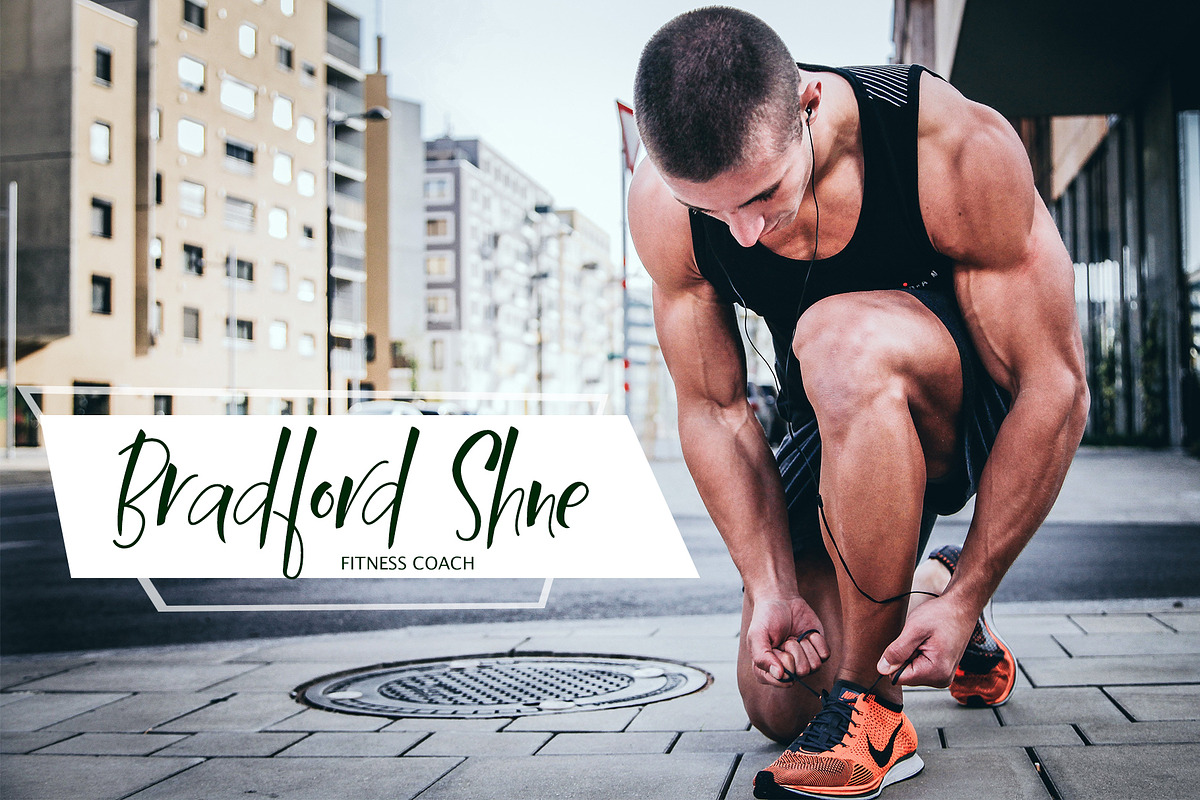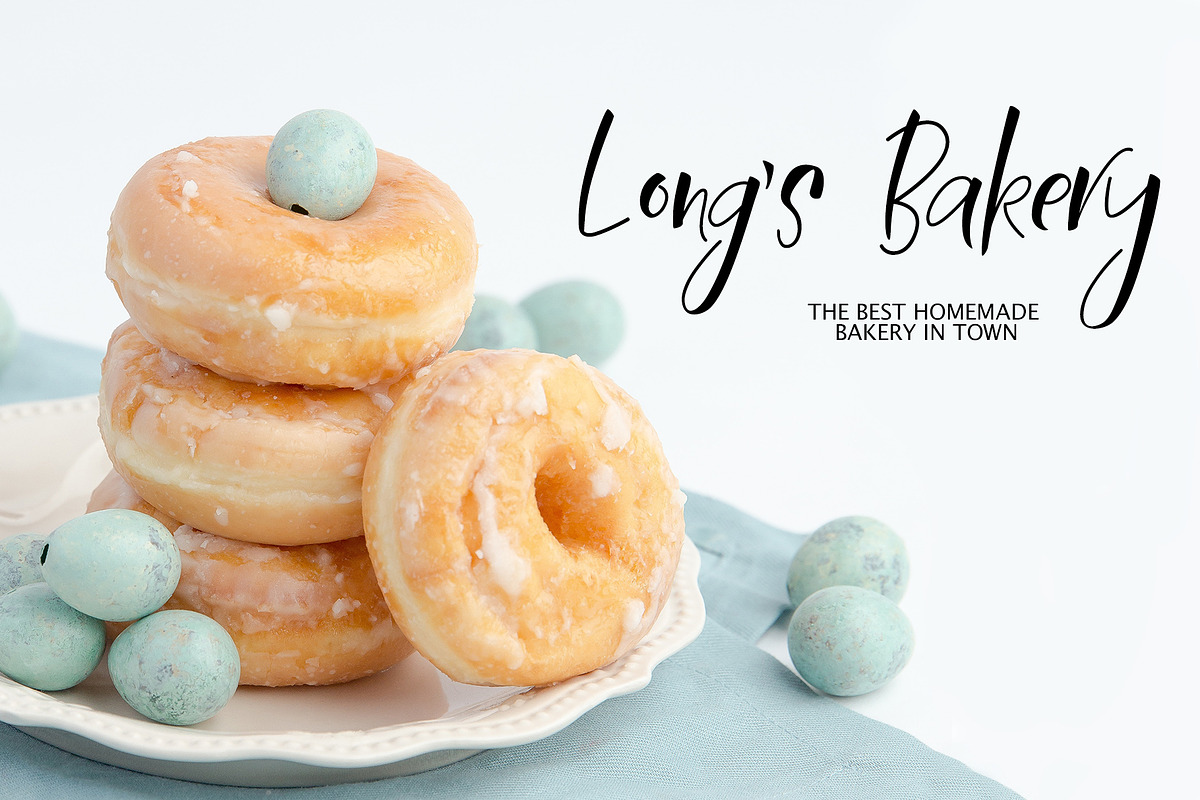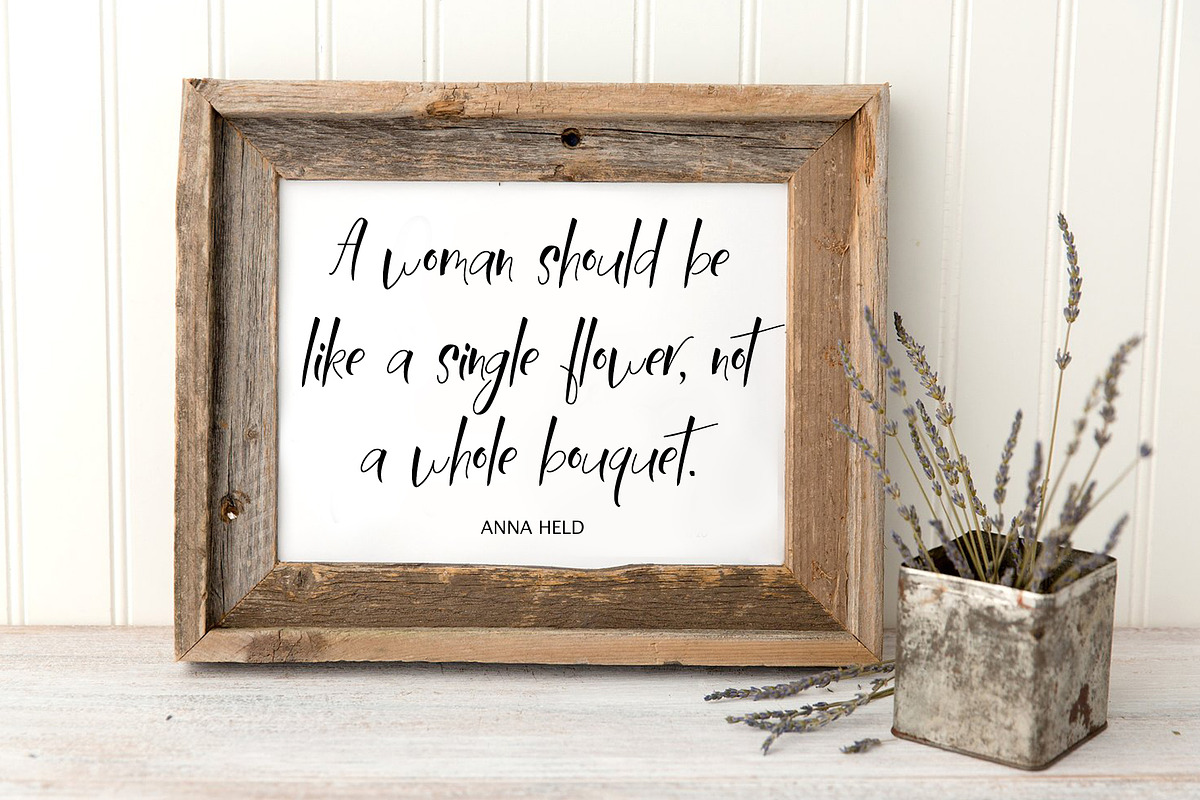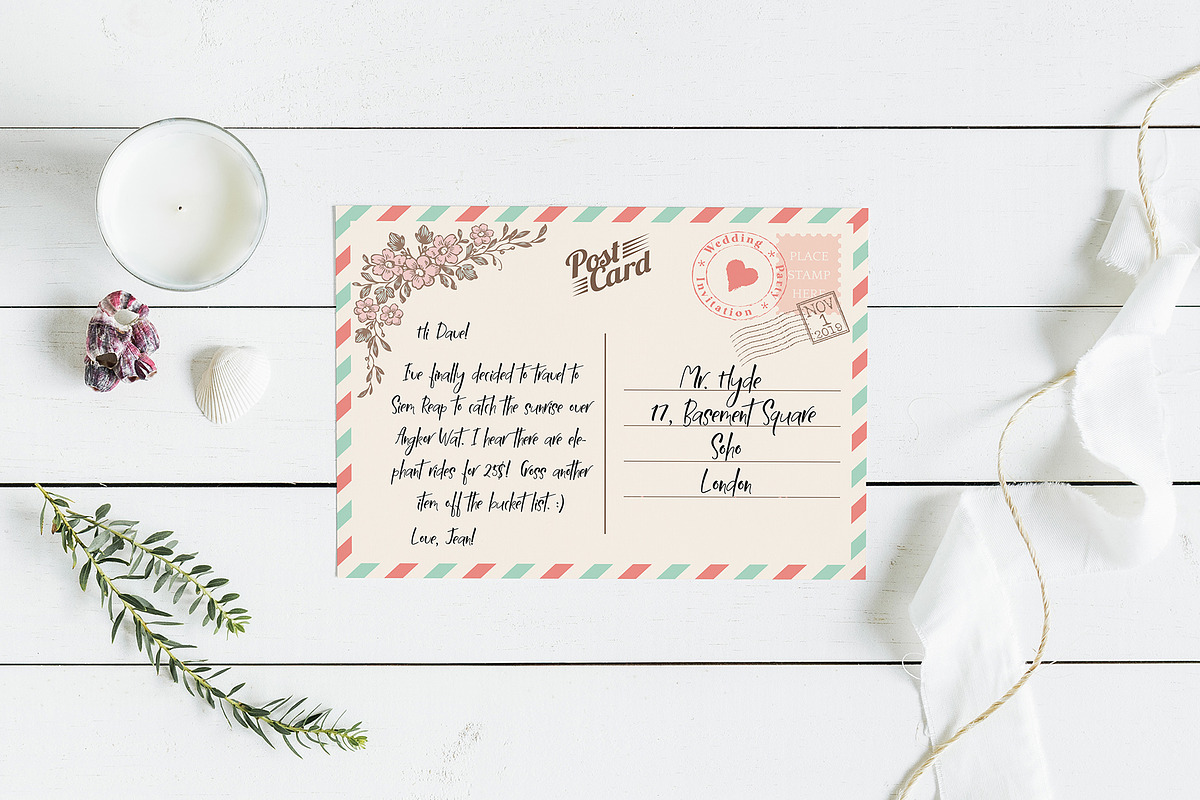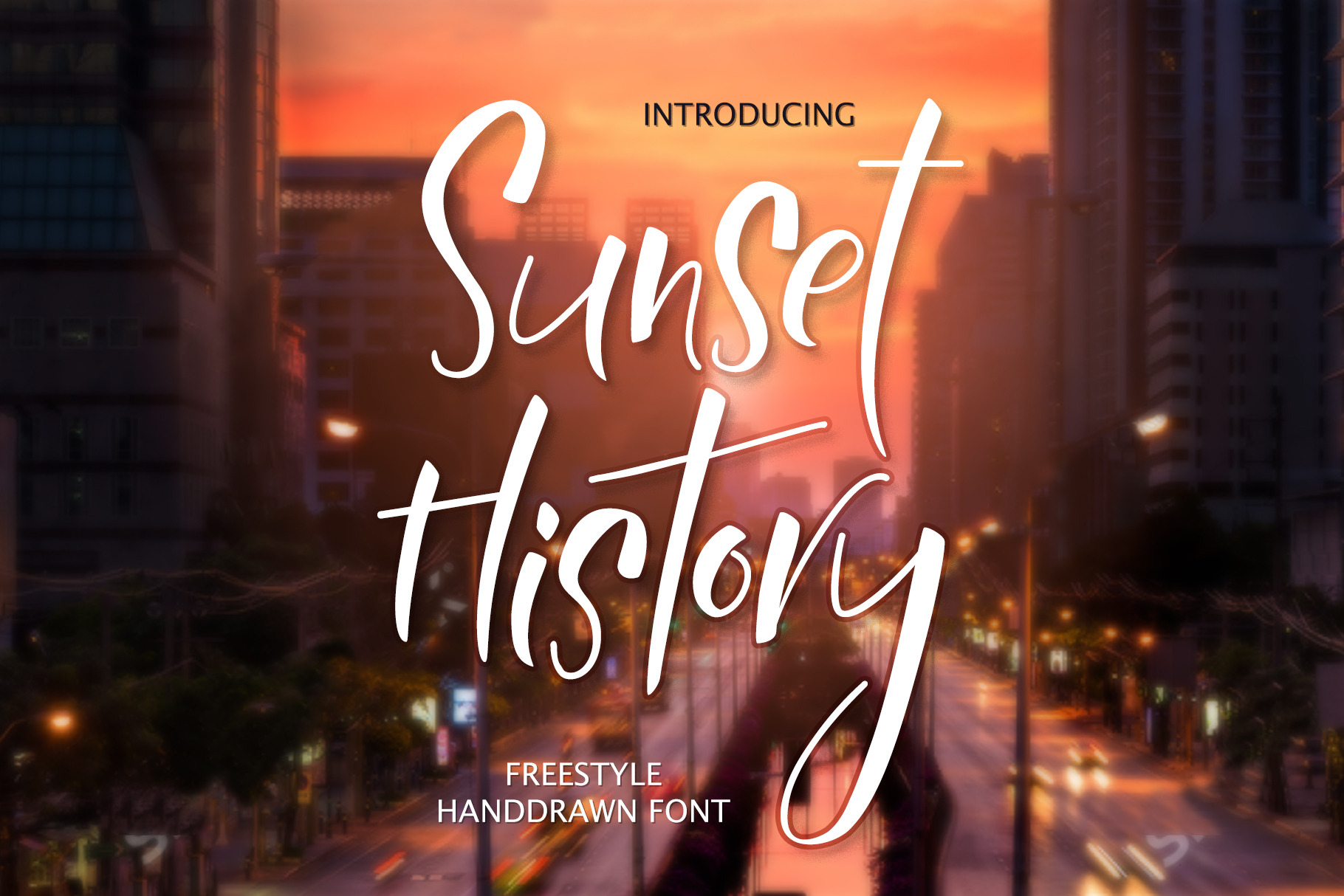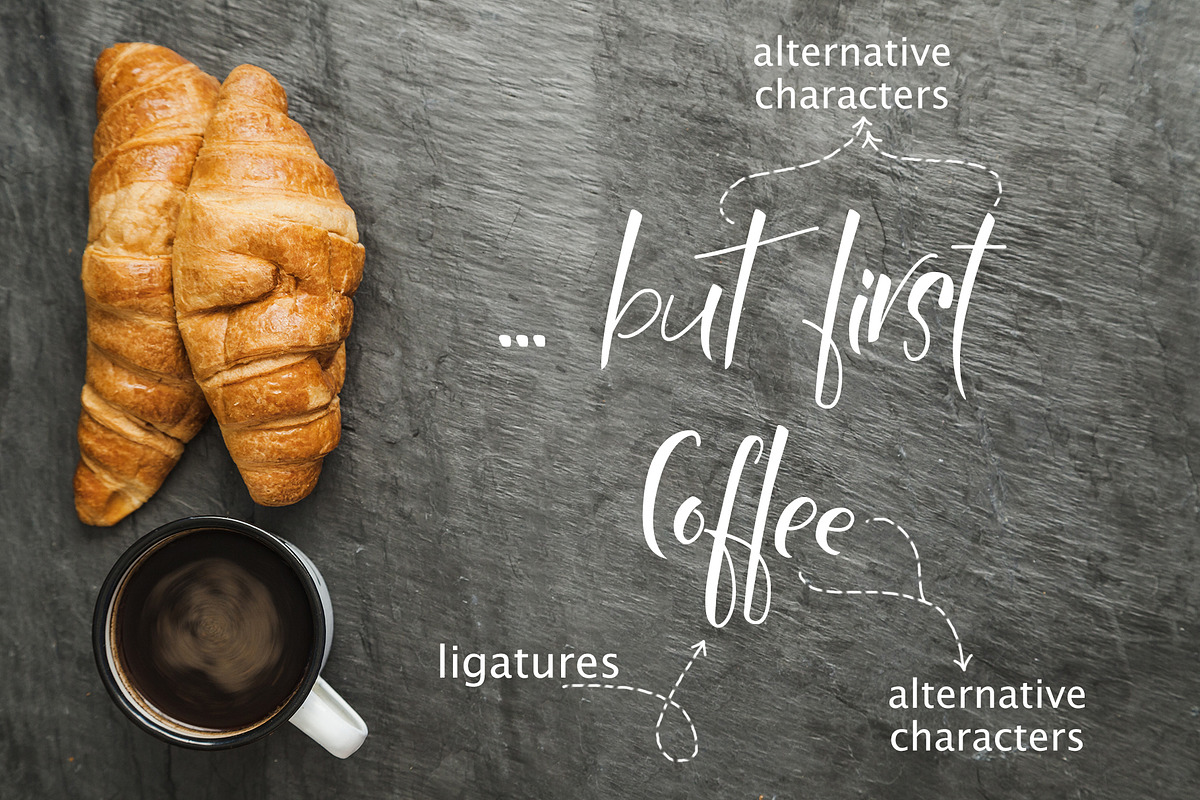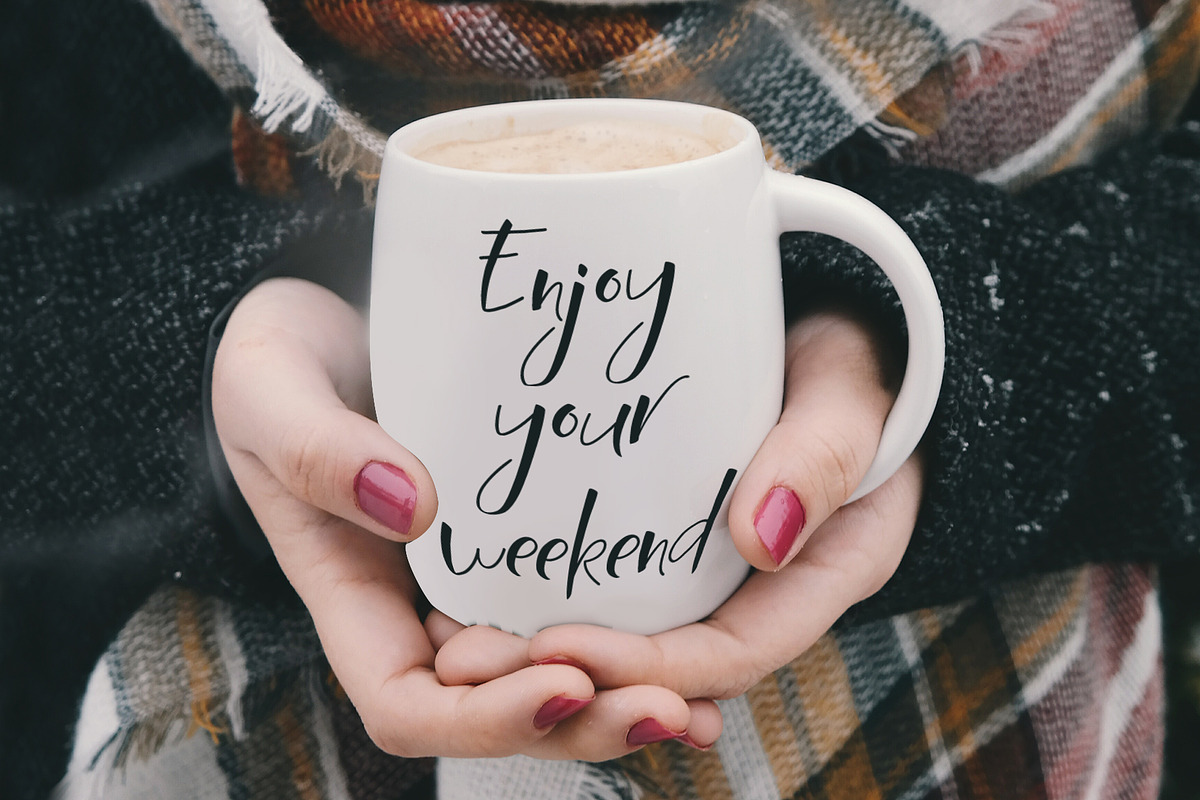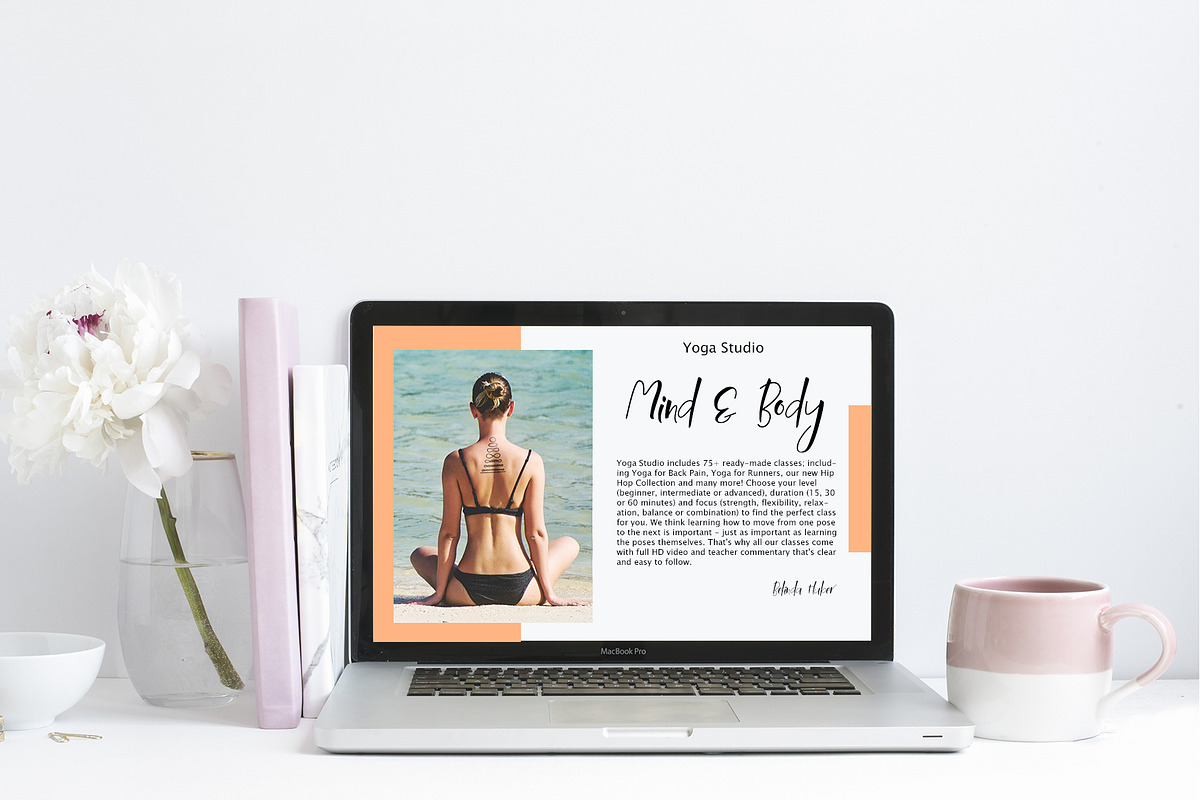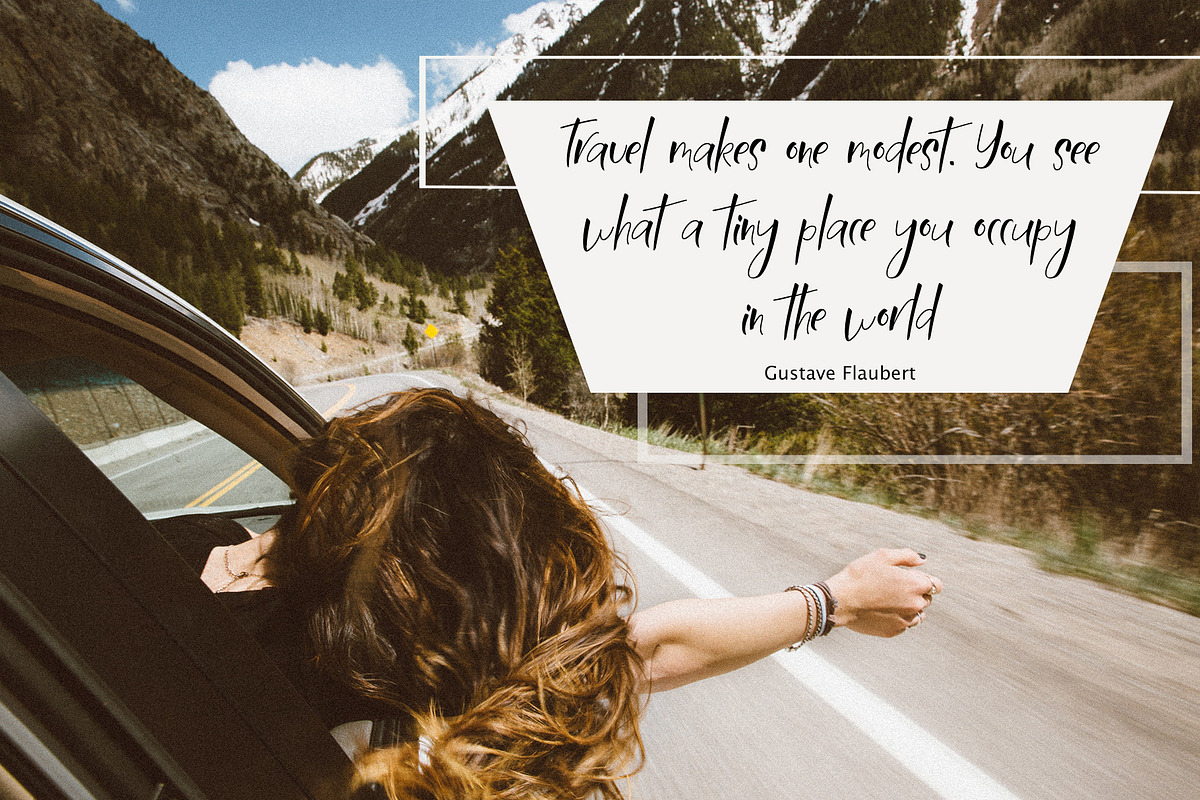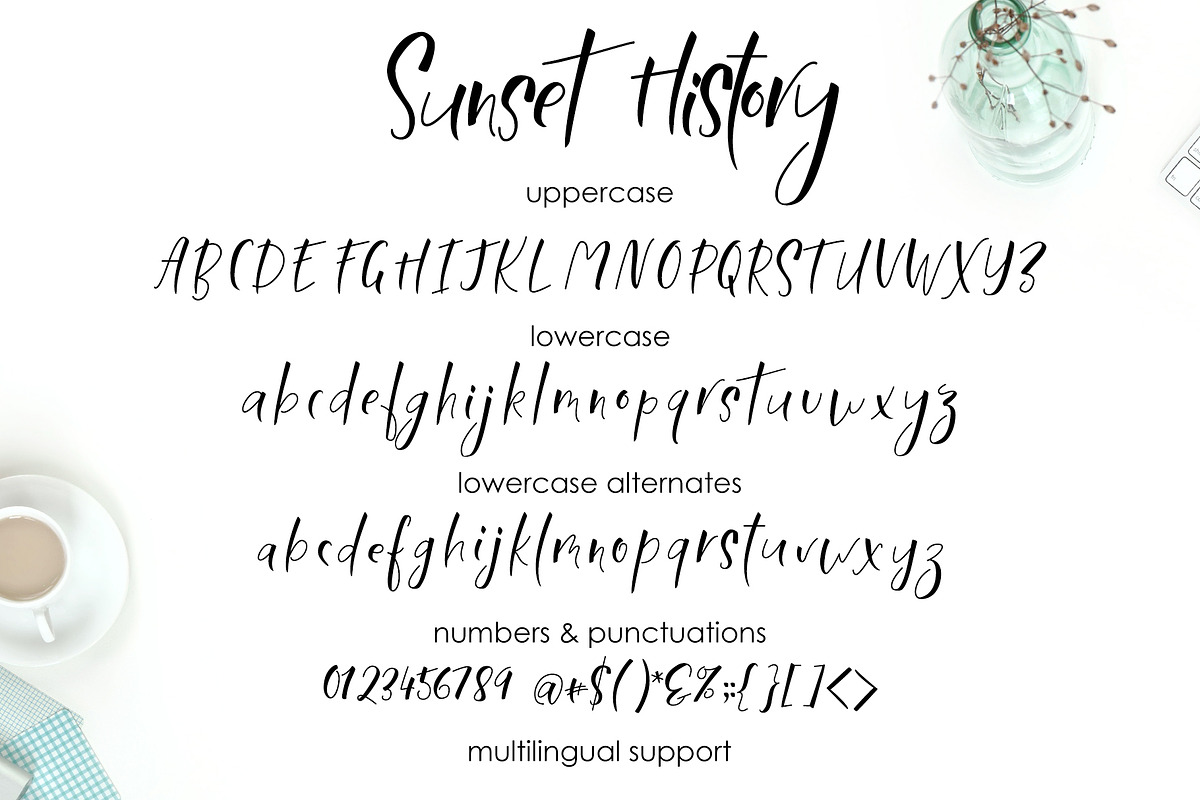
Sunset History-freestyle font
I'm super-pleased to introduce you my new font Sunset History!
This font has a large number of ligatures and an alternative set for lowercase. These characters are accessible via software with a glyphs panel. In order to use OpenType features, you would need to have a software that supports them such as Adobe Photoshop, Adobe Illustrator, Adobe InDesign, Corel Draw X versions.
Fonts include multilingual support, available for Western European, Central European and South Eastern European Languages. You can check your language typing characters in text box below.
Each letter has been attentively written, with gentle curves to produce a font thats completely distinctive and original. Simply Sunset History makes custom lettering a dream thanks to all the little extra decorative options you can include for a pretty and unique customisation.
You can use this font for watermark on photography, signature or signature logo design, quotes, album cover, business card, and many other design project. Perfect for greetings, branding, prints, invitations, and crafting, print, t-shirt design, to personalised logos, handwritten quotes and so much more!